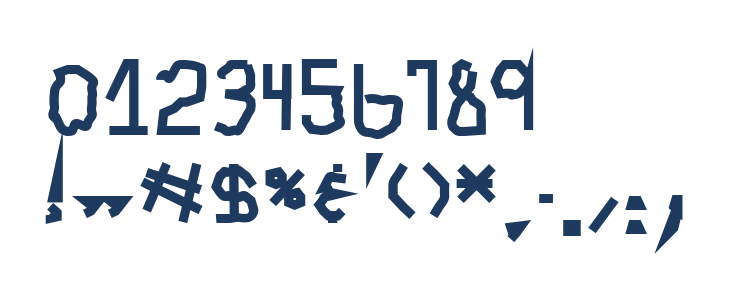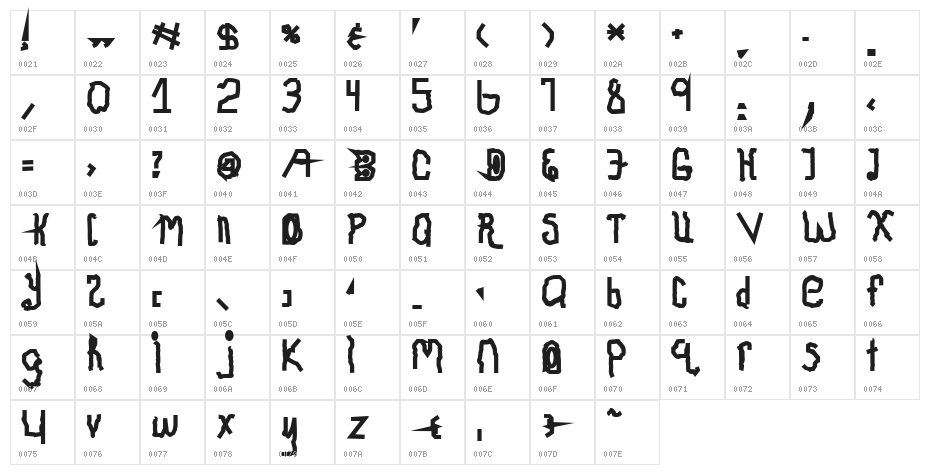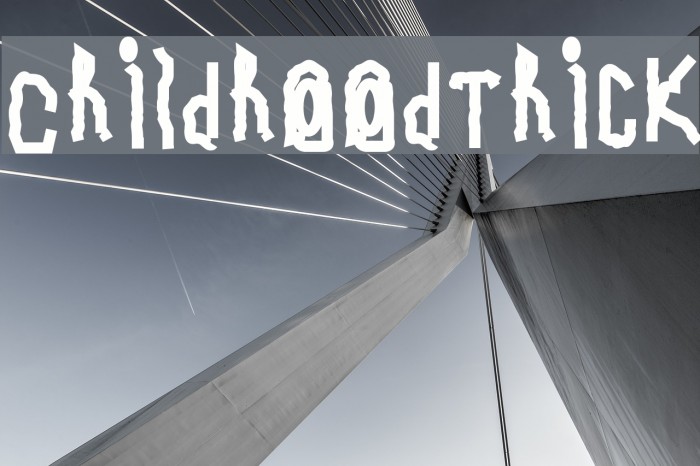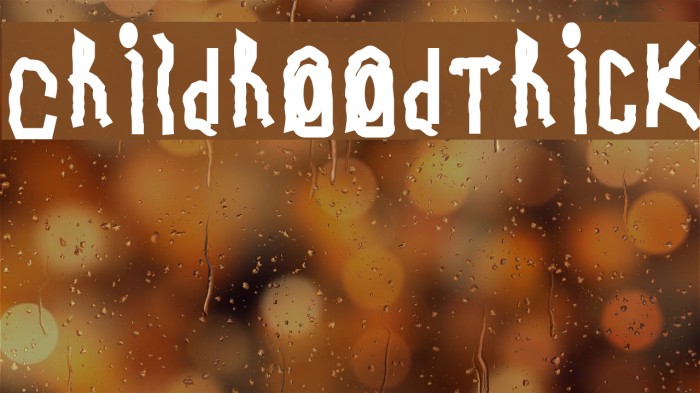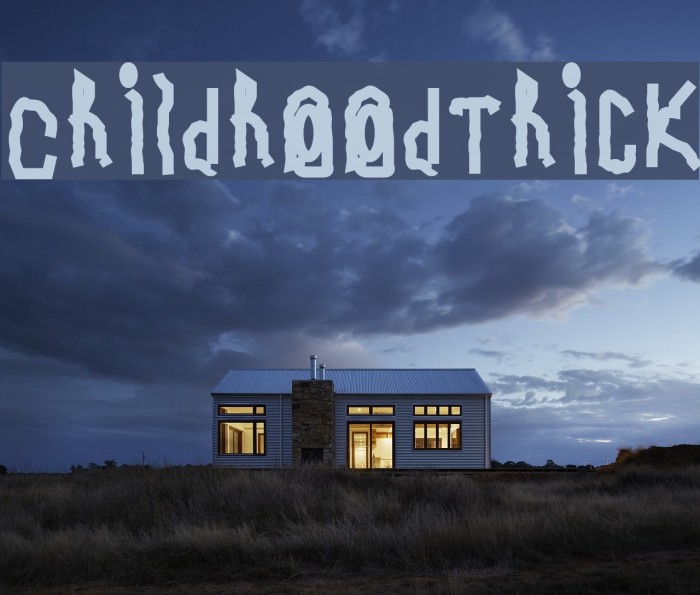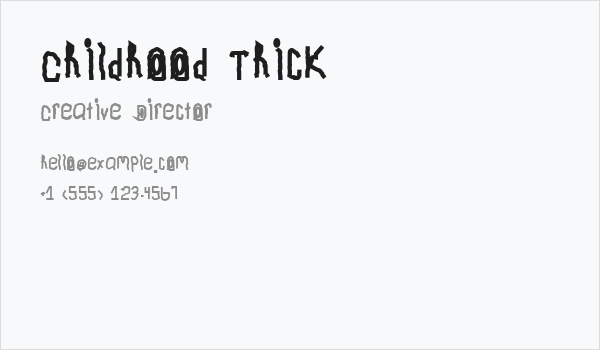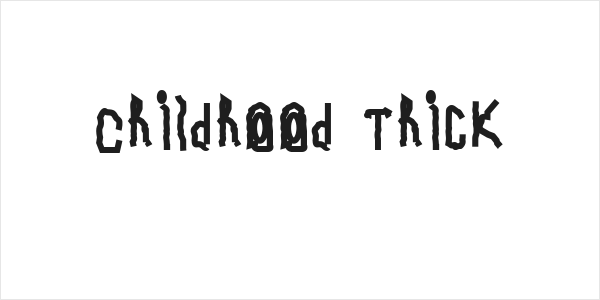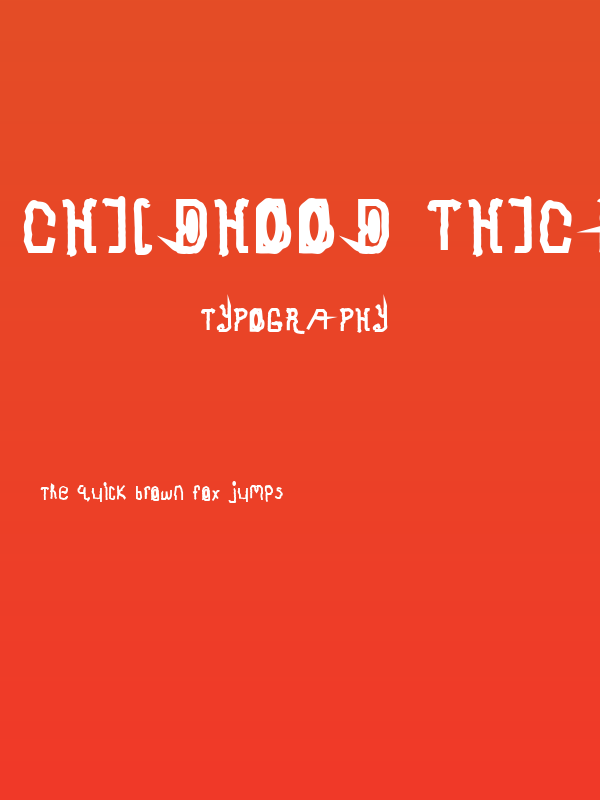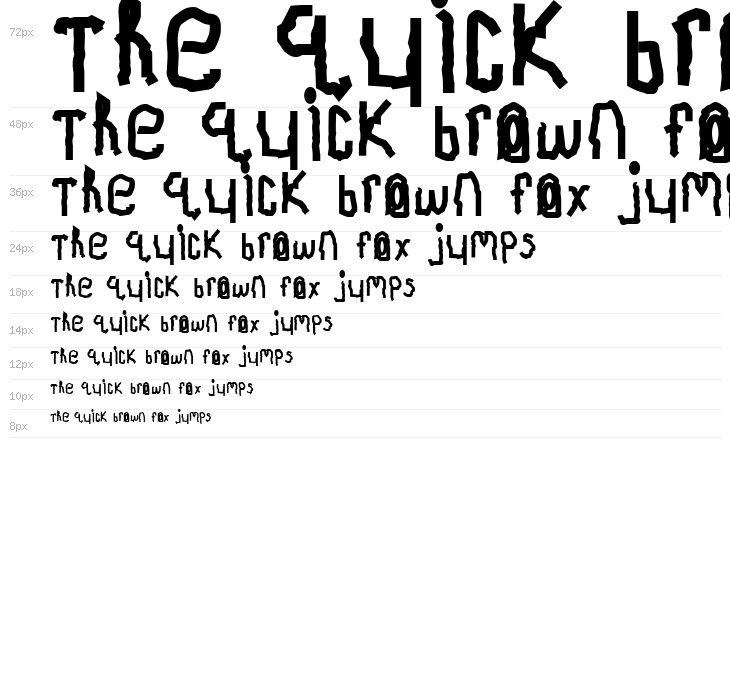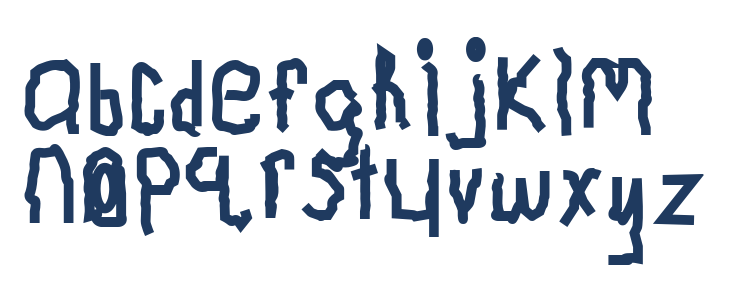
Childhood Thick Font
Childhood Thick Description
This font features a bold and playful design with thick, irregular strokes that give it a hand-drawn appearance. The characters have a whimsical and slightly chaotic style, reminiscent of childhood doodles or graffiti. The uppercase and lowercase letters maintain a consistent thickness, while the numbers and special characters follow the same playful theme. The overall look is informal and energetic, making it suitable for creative and fun projects.
| Proposed Projects | Ideal for children's book covers, playful posters, creative branding, and informal invitations. |